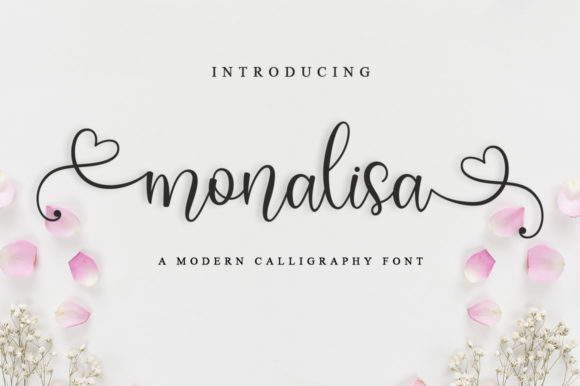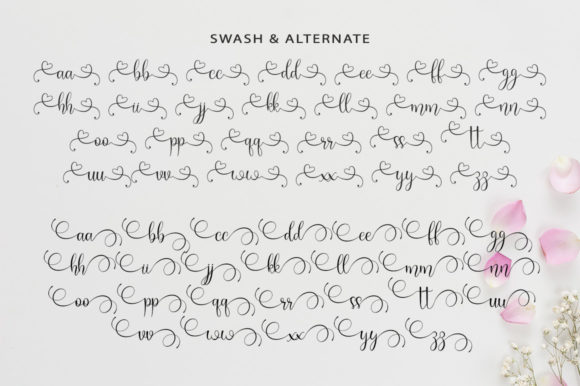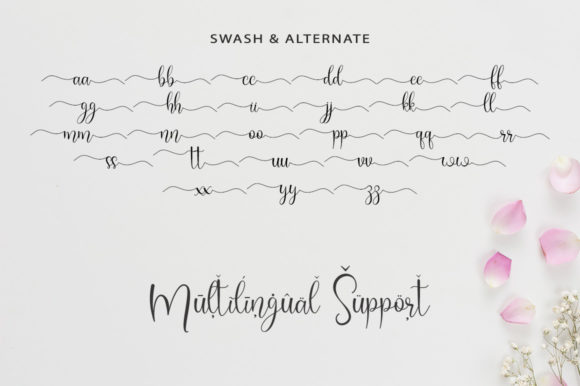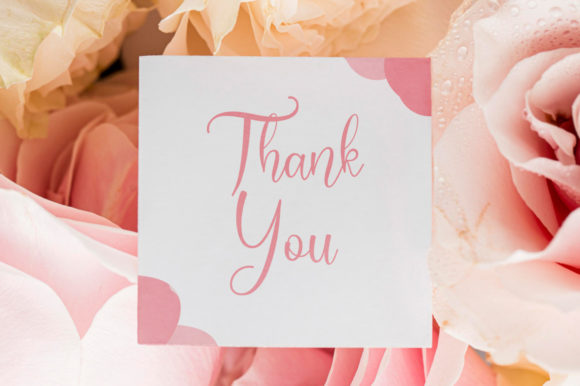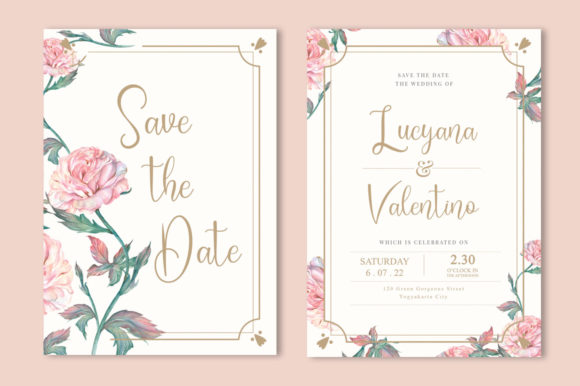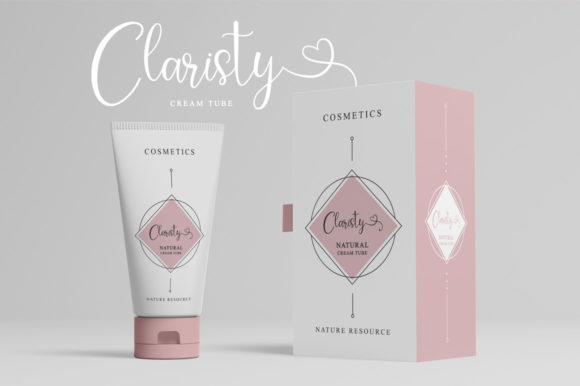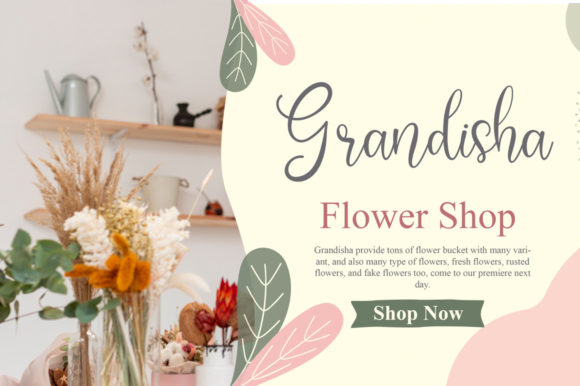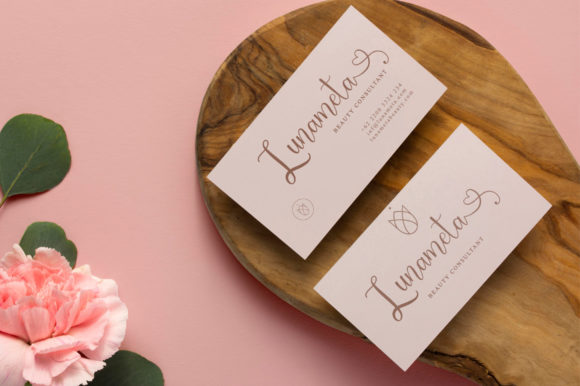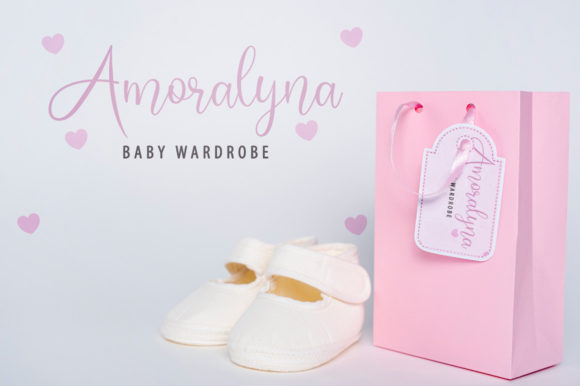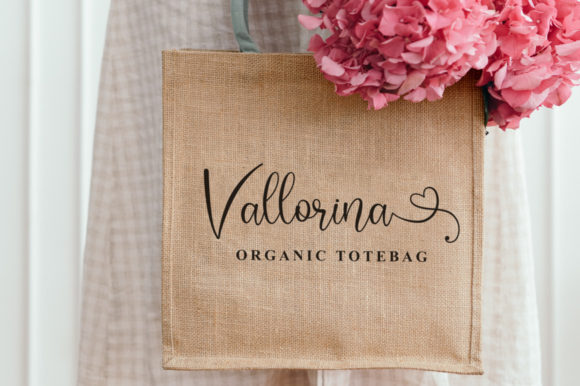
About Monalisa Font
Monalisa is a cursive and romantic script font. This font is PUA encoded which means you can access all of the glyphs and swashes with ease!
Fall for its ravishing style and use it to create gorgeous designs.